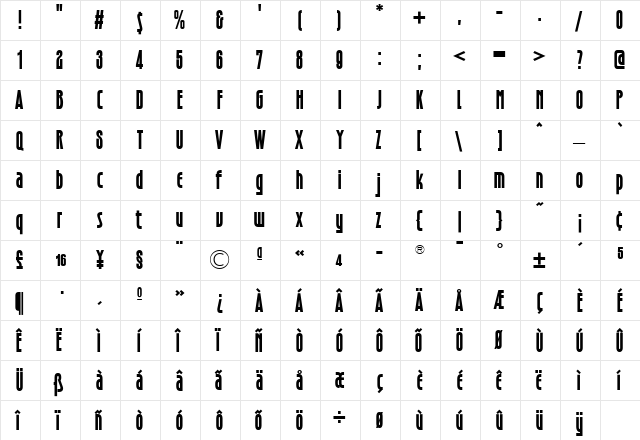
TFHotelmodTwo Bold
Bold · Treacyfaces, Inc  ·
Design Context for TFHotelmodTwo Typeface
TFHotelmodTwo is a composed and adaptable typeface that performs quietly and consistently across a wide range of design contexts. Its bold stroke weight gives it real presence on the page.